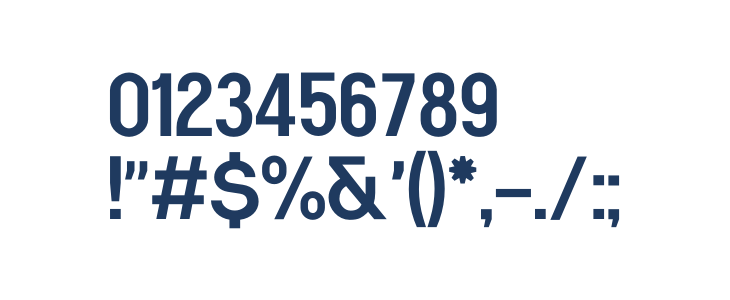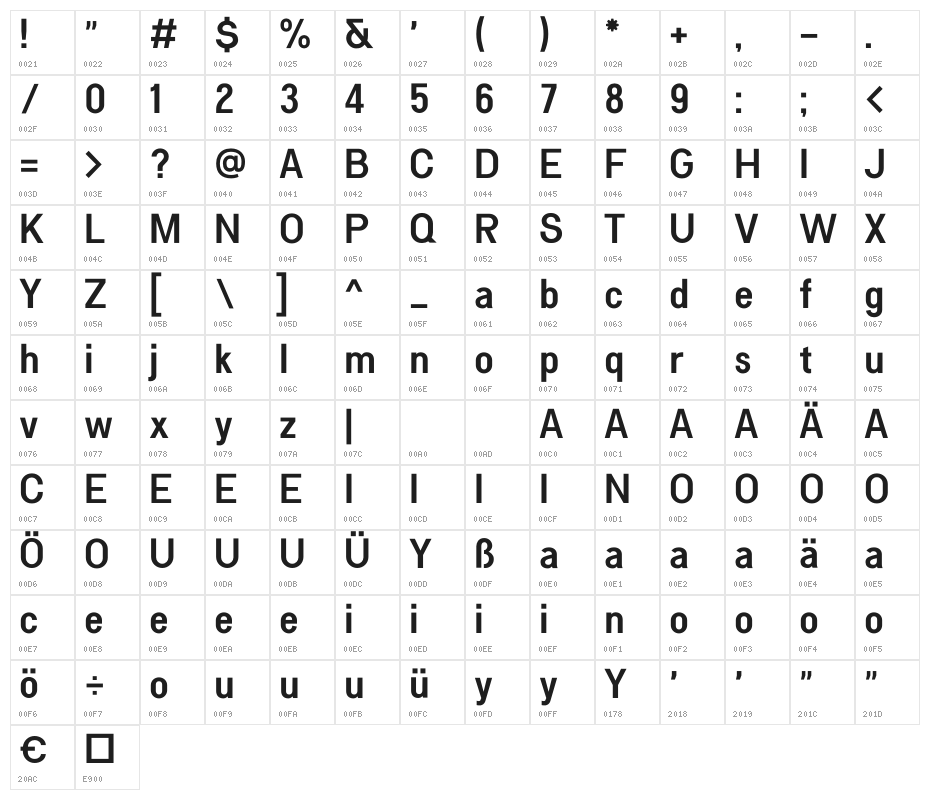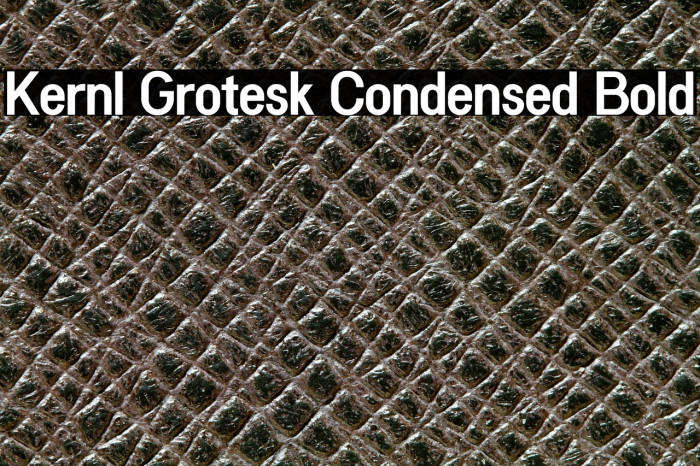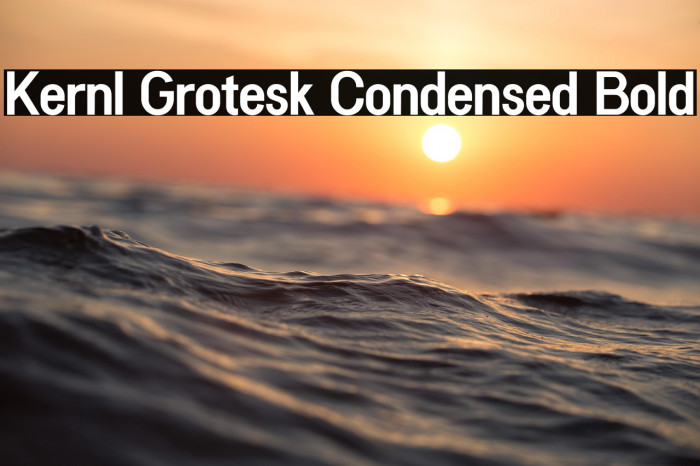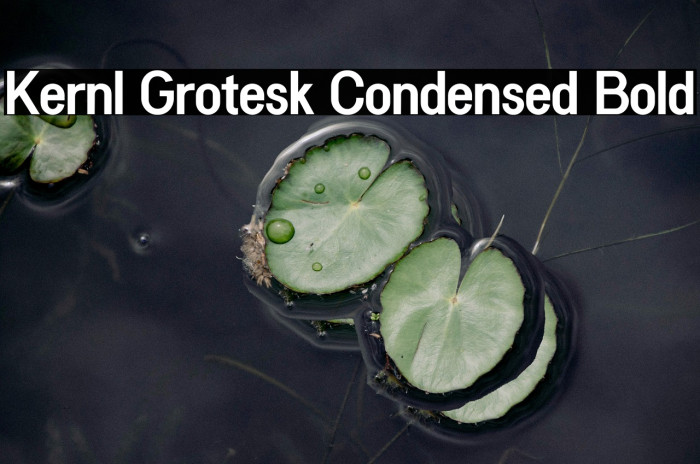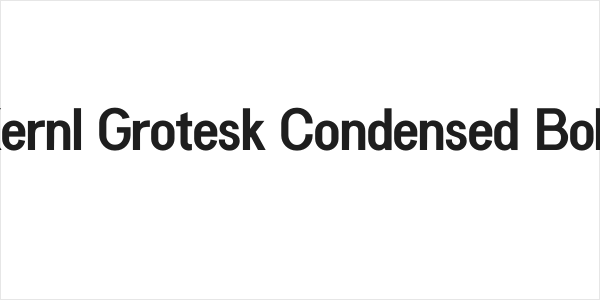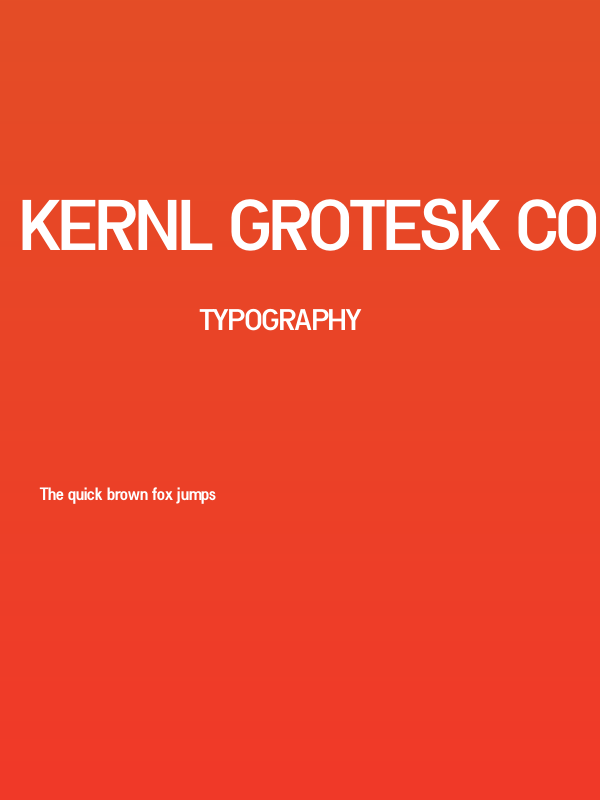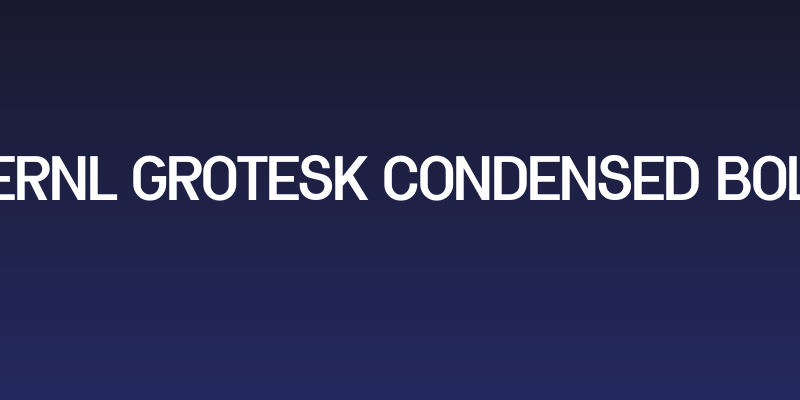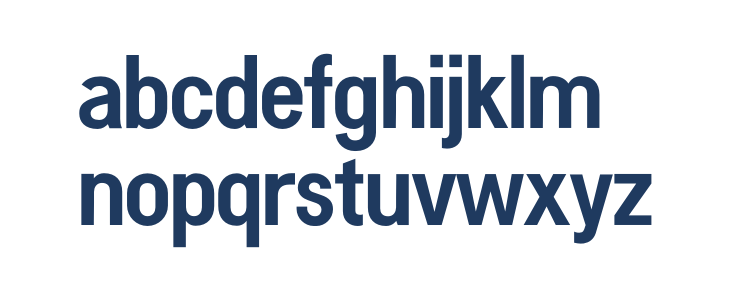
Kernl Grotesk Condensed Bold Font
Kernl Grotesk Condensed Bold Description
This font features a bold and condensed style, characterized by its clean and modern sans-serif design. The uppercase and lowercase letters maintain a uniform stroke width, providing a strong and impactful appearance. The numerals are clear and easily distinguishable, making them suitable for various applications. Special characters are well-defined, enhancing the font's versatility. Its condensed nature allows for efficient use of space, making it ideal for headlines and titles where space is limited.
| Use Case | Headlines, Logos, Advertising |
| Proposed Projects | Ideal for branding, advertising, headlines, and editorial design where a strong, modern presence is required. |